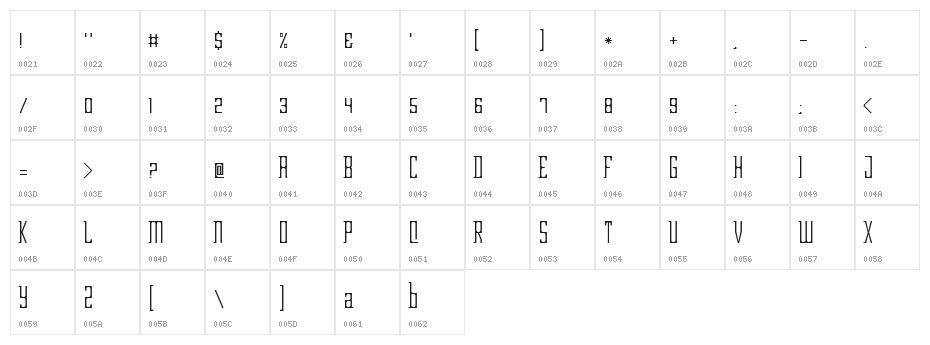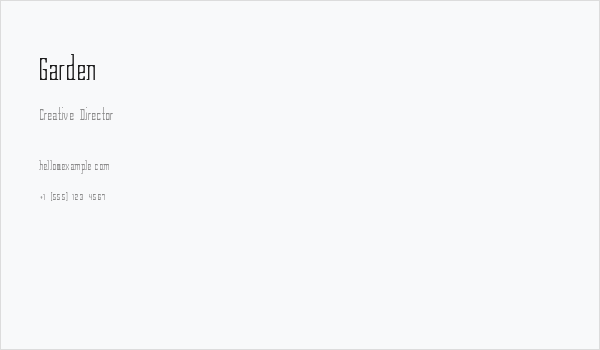
Garden Font
Garden Description
This font features a geometric and modern design with a distinct, elongated appearance. The characters are constructed with straight lines and sharp angles, giving it a futuristic and technical feel. The uppercase letters are tall and narrow, while the lowercase letters maintain a consistent height, creating a uniform look. The numerals and special characters follow the same design principles, ensuring cohesion across all elements. The font's clean and precise lines make it suitable for projects that require a contemporary and sleek aesthetic.
| Proposed Projects | Ideal for technology branding, modern posters, and futuristic design projects. |